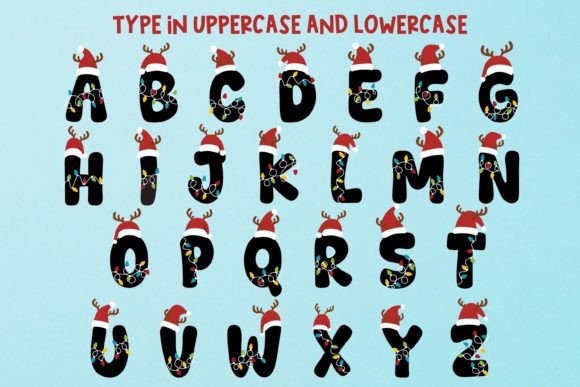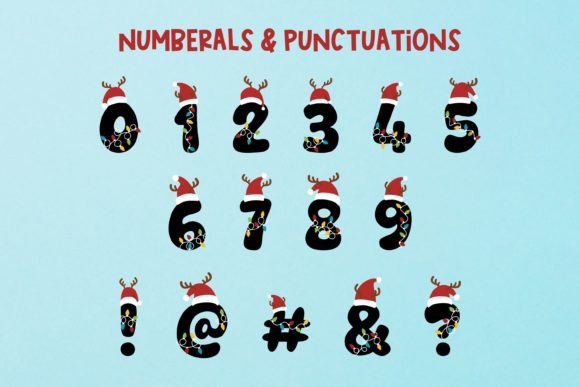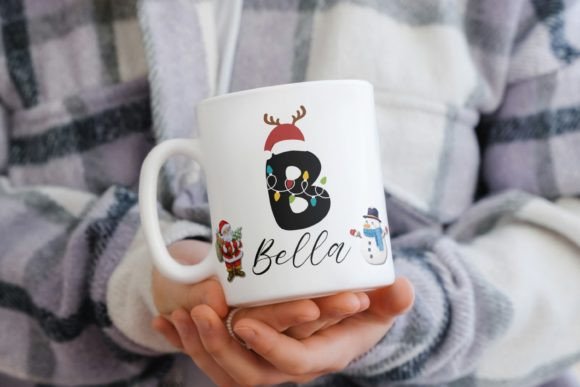
Introducing Christmas Light: The Ultimate Festive Font for Designers and Crafters
Are you looking for a font that captures the essence of Christmas and adds a touch of magic to your designs? Look no further than Christmas Light, a vibrant and playful color font that’s perfect for creating enchanting Christmas-themed designs. In this article, we’ll explore the features and benefits of Christmas Light, and how it can elevate your designs to mesmerizing masterpieces.
A Font that Shines Bright
Christmas Light is a unique and captivating font that’s specifically designed to bring the spirit of Christmas to your designs. Its playful and vivid characters are carefully crafted to add a touch of whimsy and wonder to your projects, making it perfect for a wide range of applications, from t-shirt designs and digital imprints to craft creations, decorative cards, and extensive projects.
Convenience and Flexibility
With Christmas Light, the design possibilities are endless. You can use the font to create:
• Festive t-shirt designs that make perfect gifts or promotional items
• Enchanting digital imprints for social media, blogs, or websites
• Beautiful craft creations, such as handmade cards, gift tags, or decorations
• Stunning decorative cards for Christmas or other winter celebrations
• Extensive projects, such as posters, flyers, or brochures, that showcase the magic of Christmas
Why Choose Christmas Light?
So, why choose Christmas Light over other fonts? Here are just a few reasons:
• Unique and Playful Design: Christmas Light boasts a one-of-a-kind design that’s sure to capture the attention of your audience.
• Versatile: The font is versatile and can be used for a wide range of projects, from digital designs to physical crafts.
Tips and Tricks for Using Christmas Light
Here are some tips and tricks for getting the most out of Christmas Light:
• Experiment with Colors: Don’t be afraid to experiment with different colors and combinations to find the perfect look for your design.
• Mix and Match: Mix and match Christmas Light with other fonts or design elements to create a unique and eye-catching design.
• Pay Attention to Size: Make sure to adjust the size of the font according to the project requirements to ensure that it looks its best.
Christmas Light is a game-changing font that’s sure to bring a touch of magic to your Christmas-themed designs. With its unique and playful design, high-quality files, and versatility, it’s the perfect choice for designers and crafters alike. Whether you’re creating festive t-shirt designs, enchanting digital imprints, or beautiful craft creations, Christmas Light is the ultimate font for adding a dash of Christmas cheer to your projects. So, what are you waiting for? Get your hands on Christmas Light today and transform your designs into mesmerizing masterpieces!